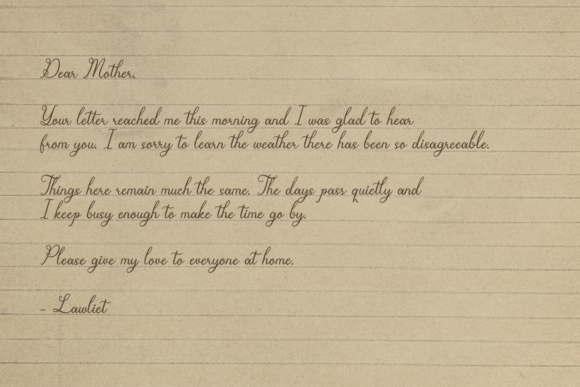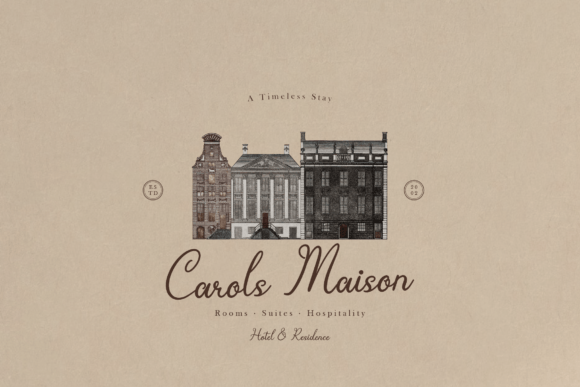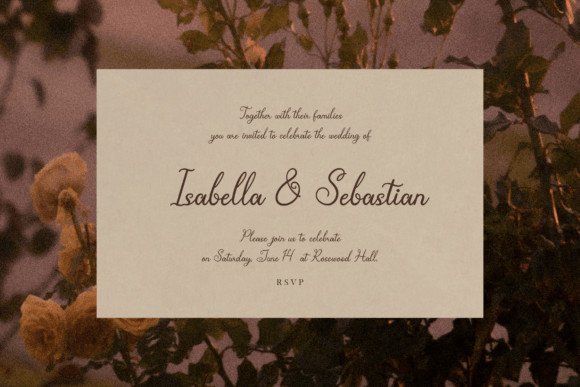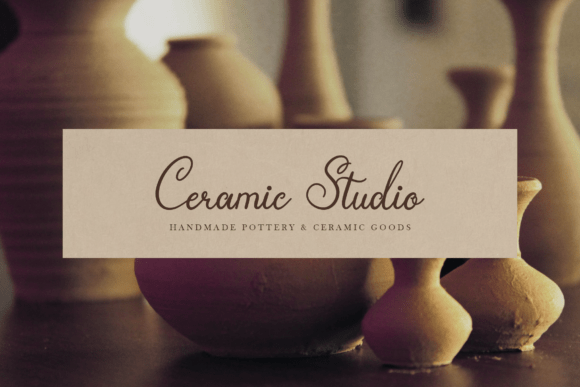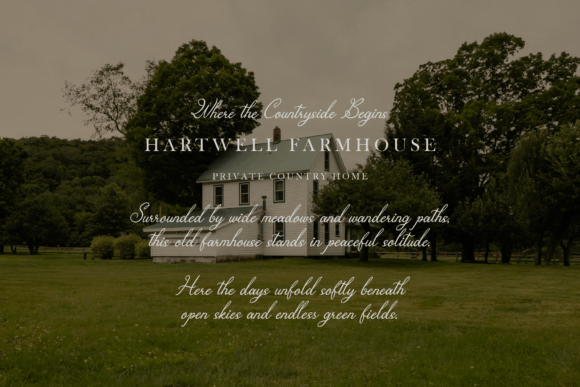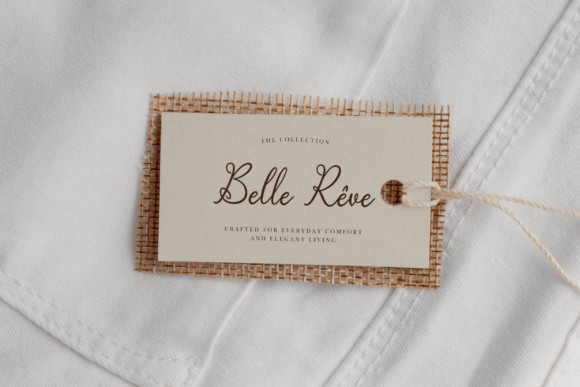
Introducing Estalion Linier Font: A Beautiful Handwritten Vintage Script
Are you looking for a font that captures the nostalgic charm of a handwritten letter? Look no further than Estalion Linier, a stunning handwritten vintage script that exudes warmth and personality. This beautiful font features a relaxed, rhythmic flow with gentle loops and a consistent monoline weight that feels authentically “made with love.” In this article, we’ll explore the unique characteristics of Estalion Linier and how it can elevate your design projects.
The Charm of Handwritten Typography
Handwritten typography has a way of evoking emotions and creating a personal connection with the reader. It’s a style that speaks to the heart, conveying a sense of warmth, sincerity, and nostalgia. Estalion Linier embodies these qualities, making it an ideal choice for designers and crafters looking to add a touch of vintage charm to their work.
Key Features of Estalion Linier Font
So, what sets Estalion Linier apart from other fonts? Here are some of its key features:
- Relaxed, rhythmic flow: Estalion Linier has a smooth, flowing quality that mimics the natural movement of handwriting.
- Gentle loops: The font features delicate loops and swashes that add to its vintage charm.
- Consistent monoline weight: The font’s monoline weight gives it a sense of consistency and elegance.
- Authentically “made with love”: Estalion Linier has a warm, human feel that makes it perfect for projects that require a personal touch.
Perfect for Vintage-Themed Projects
Estalion Linier is an ideal companion for a range of vintage-themed projects, including:
- Vintage-themed wedding invitations: Add a touch of nostalgia and romance to your wedding invitations with Estalion Linier.
- Rustic packaging: Use Estalion Linier to create charming, handmade packaging that stands out from the crowd.
- Historical scrapbooking: Bring your historical scrapbooking projects to life with Estalion Linier’s vintage charm.
- Personal branding projects: Use Estalion Linier to create a unique and memorable brand identity that reflects your personality.
Bringing Timeless Storytelling to Your Designs
Estalion Linier has a warm, approachable personality that brings a sense of timeless storytelling to any design. Whether you’re creating a wedding invitation, a packaging label, or a personal branding project, this font will help you connect with your audience on a deeper level.
Tips for Using Estalion Linier Font
Here are some tips for getting the most out of Estalion Linier:
- Pair with complementary fonts: Combine Estalion Linier with other fonts to create a unique and visually appealing typography.
- Experiment with colors: Try out different colors and textures to add depth and interest to your designs.
- Use it sparingly: Estalion Linier is a statement font, so use it sparingly to create maximum impact.
Estalion Linier is a beautiful handwritten vintage script that captures the nostalgic charm of a handwritten letter. With its relaxed, rhythmic flow, gentle loops, and consistent monoline weight, this font is perfect for vintage-themed projects, personal branding, and historical scrapbooking. Whether you’re a designer or a crafter, Estalion Linier is an excellent choice for anyone looking to add a touch of warmth and personality to their work.